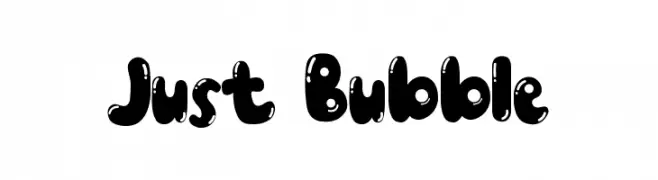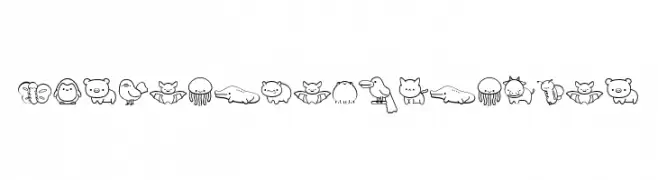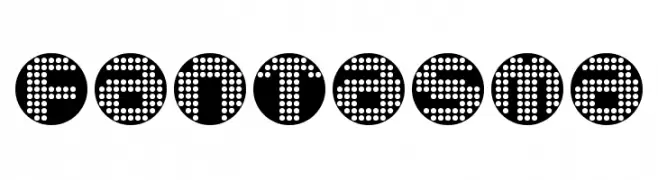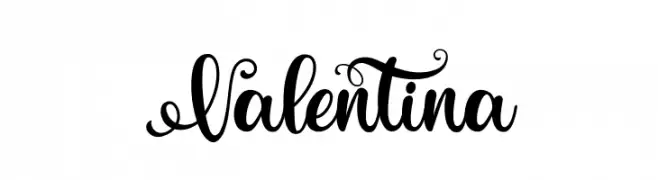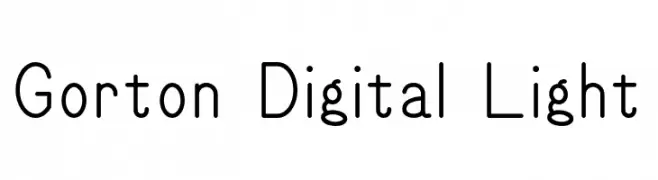
A playful, bold, and bubbly font with a rounded, balloon-like design.
A whimsical dingbat font featuring cute animal illustrations.
A hand-drawn, playful font with an artistic and casual style.
A bold, hand-drawn font with characters in black squares, offering a raw, edgy style.
A dot matrix style font with characters enclosed in circles, offering a retro digital aesthetic.
A flowing, elegant cursive font with interconnected strokes and a handwritten appearance.
An elegant script font with ornate swirls and decorative flair.
A bold, cityscape-themed font with angular, architectural lines.
( A revival of a 20th century interwar typeface. In the early- to mid-20th century, the George Gorton Machine Company made engraving machines (among other machines). )
A clean, modern sans-serif font with a light weight and balanced spacing.
( A revival of a 20th century interwar typeface. In the early- to mid-20th century, the George Gorton Machine Company made engraving machines (among other machines). )
A bold, rounded font with a digital aesthetic, ideal for displays.